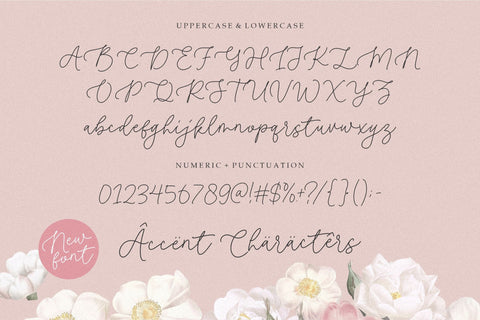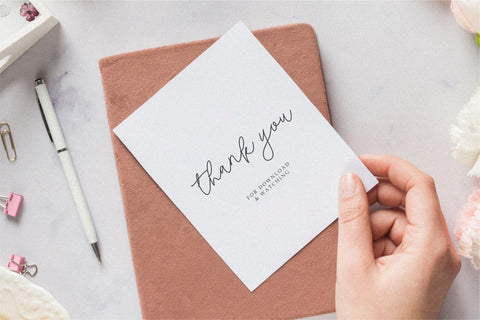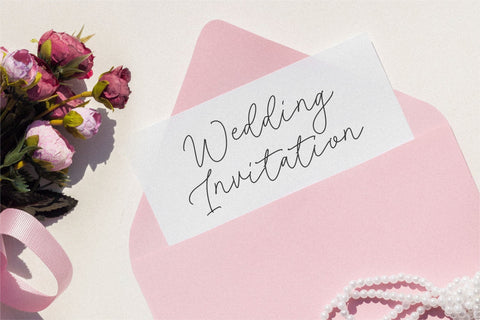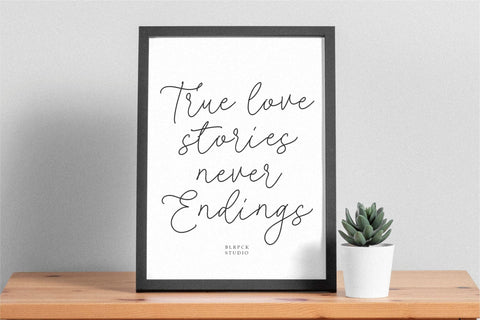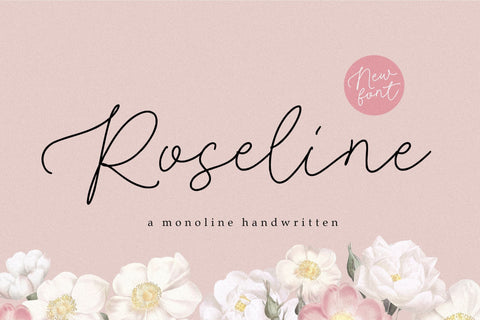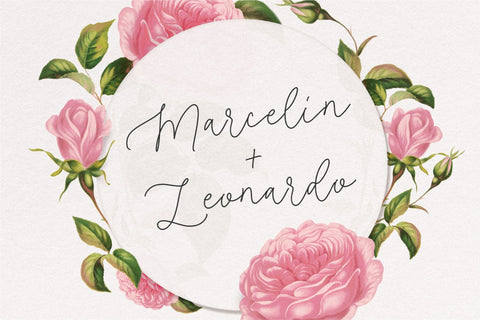
Roseline Font
Roseline - a Monoline Handwritten that's clean, elegant and perfect for a range of design projects! With its smooth, effortless lines and understated sophistication, this font is the perfect choice for those who want a modern look that's still timeless in its appeal.
Crafted with precision and care, this font is incredibly versatile and can be used for a range of design projects, including logos, branding, invitations, packaging, and more. With its simple yet refined aesthetic, it's sure to make a lasting impression on anyone who sees it.